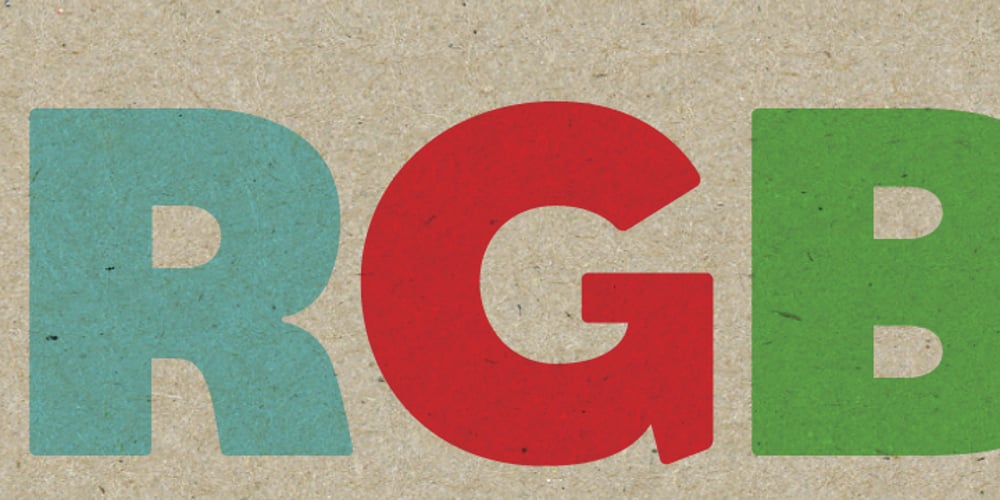
Gordon Font Family was designed by Lan Huang and published by Letterbox. Gordon contains 1 styles and family package options. Although appearing at first as a no-nonsense bold titling face, Gordon actually offers a much greater complexity through the addition of a wide range of special superscript ornaments. This adds an element of spice and depth to the face, creating a wide variation of creative typographic possibilities.